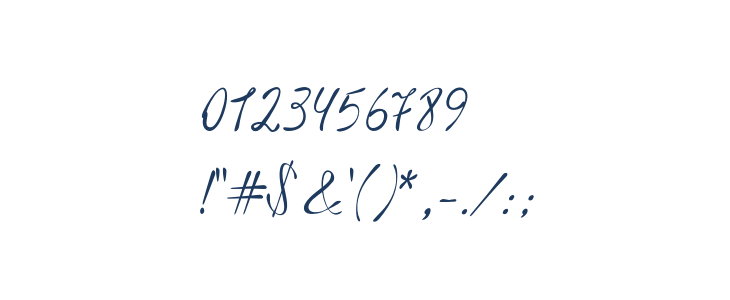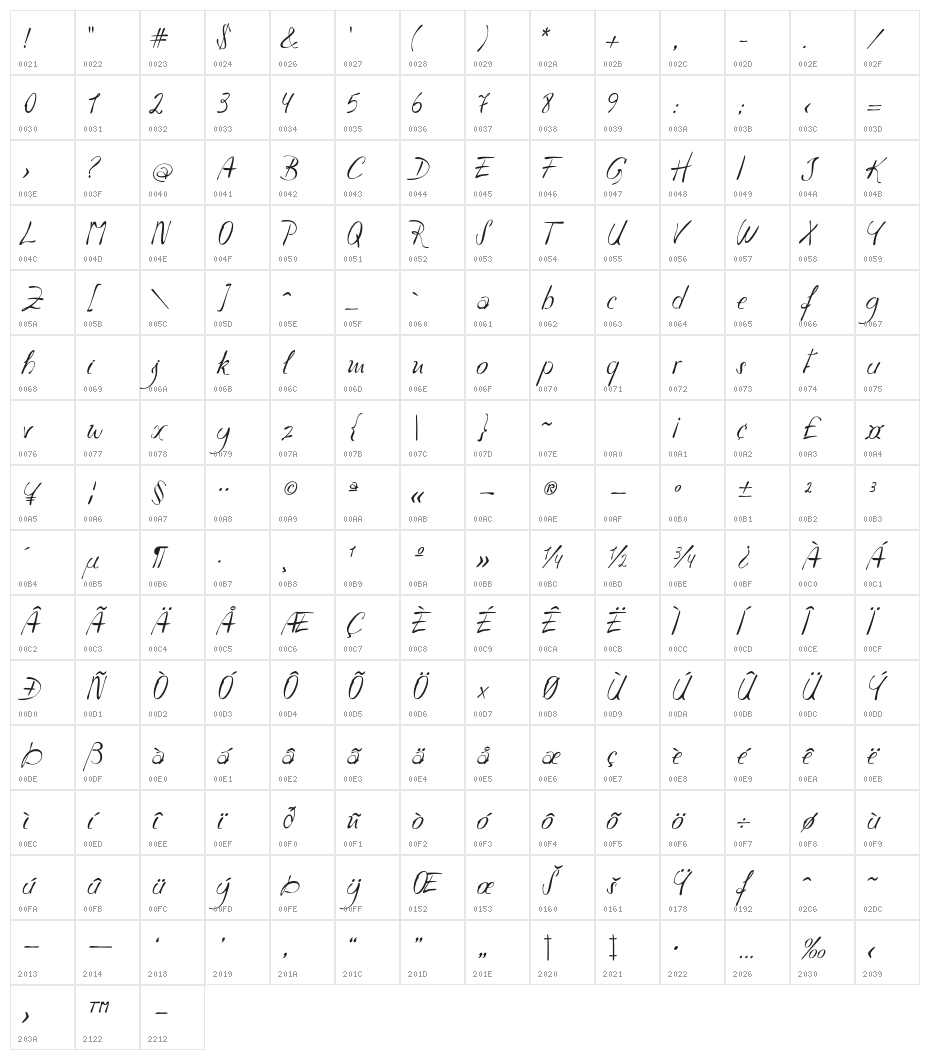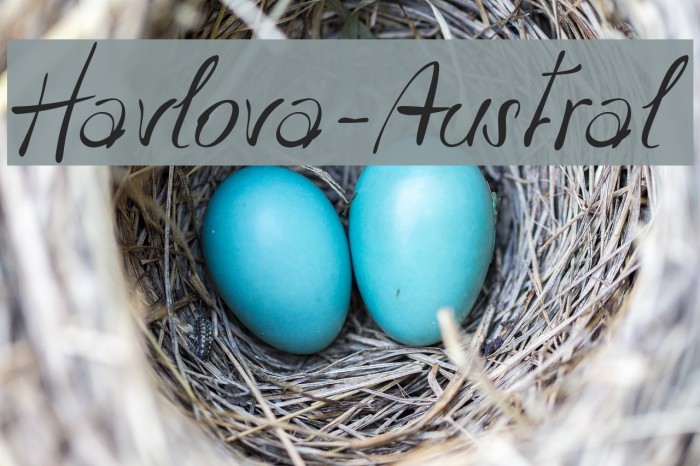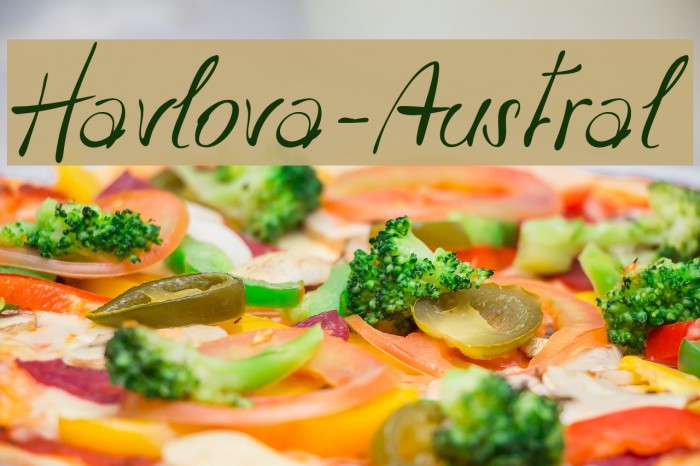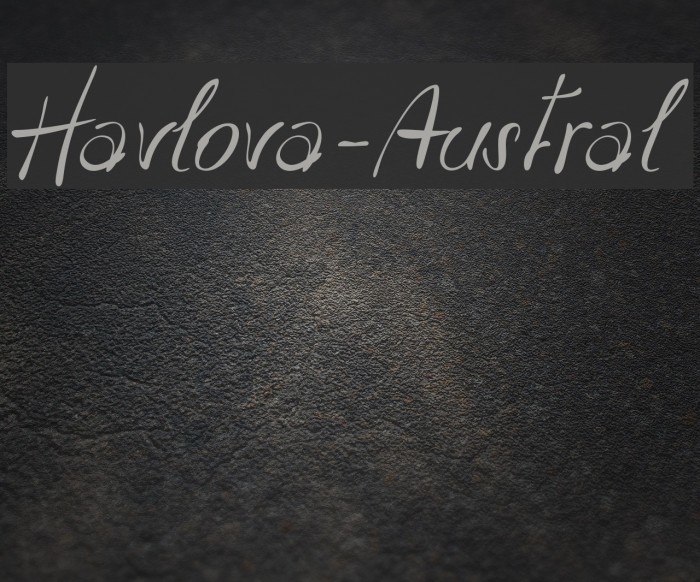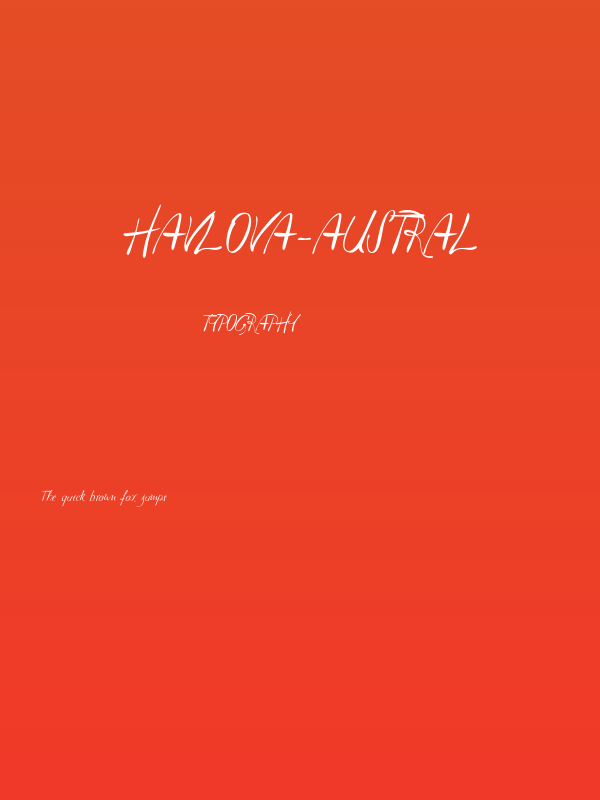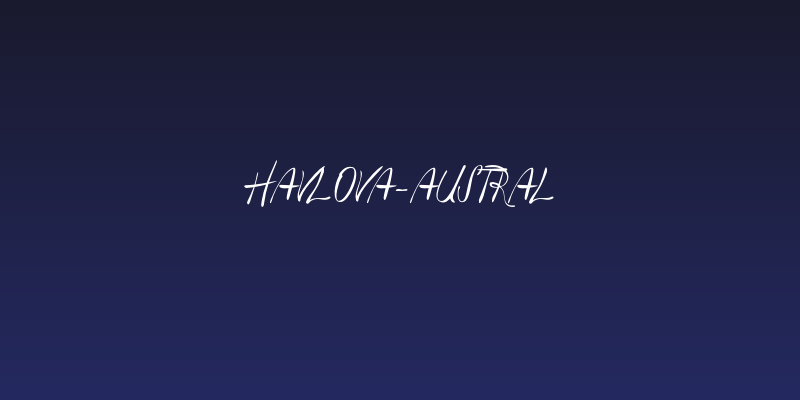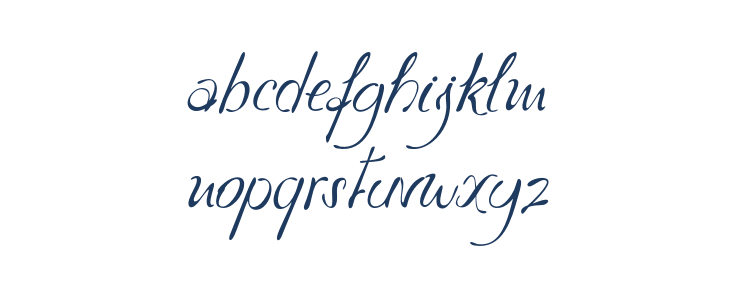
Havlova-Austral Font
Havlova-Austral Description
This font exhibits a flowing, cursive style with elegant, sweeping strokes that mimic the fluidity of handwriting. The uppercase letters are bold and dynamic, with distinctive loops and curves that give them a sense of motion. The lowercase letters maintain a consistent style, offering a harmonious blend of curves and angles. Numbers are crafted with the same attention to detail, ensuring readability while maintaining the overall aesthetic. Special characters are thoughtfully integrated, complementing the font's artistic flair. This font is ideal for projects that require a personal, artistic touch, such as invitations, greeting cards, or branding materials.